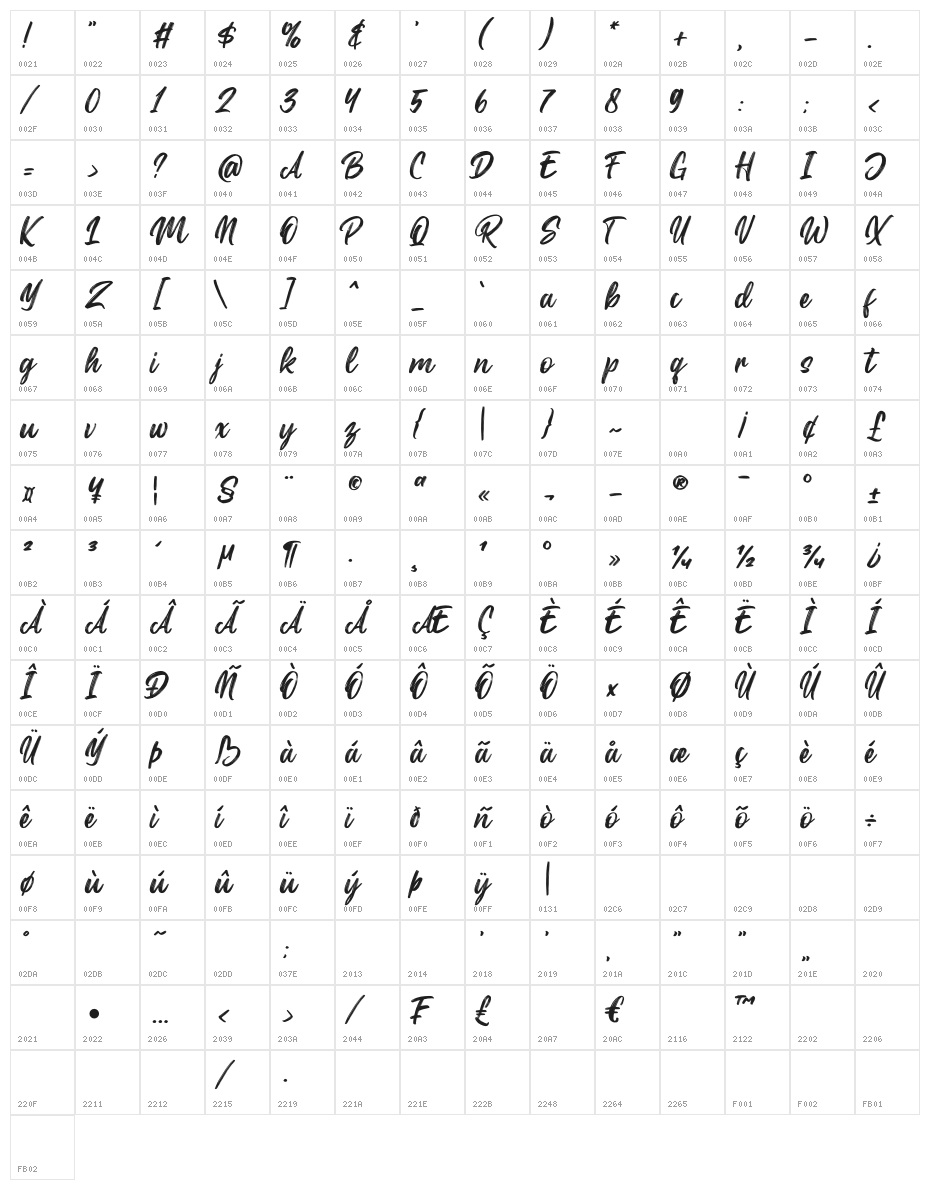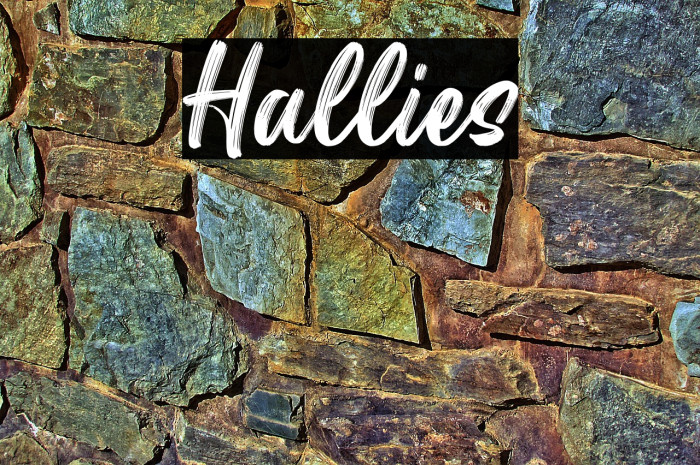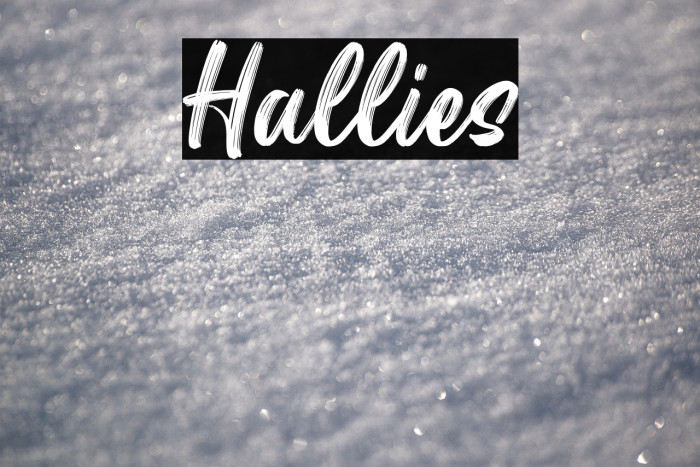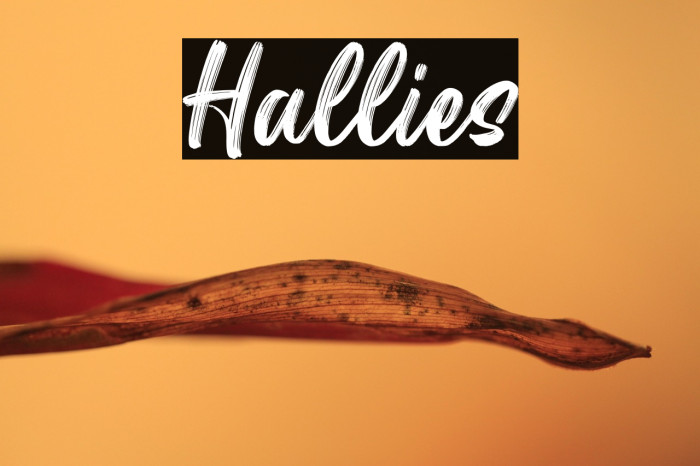
Hallies Font
Hallies Description
This font exudes a bold and dynamic handwritten style, characterized by its thick, brush-like strokes that convey a sense of energy and movement. The letters are slightly slanted, adding to the casual and informal feel, while maintaining a consistent flow throughout. The uppercase letters are bold and commanding, while the lowercase letters offer a more fluid and connected appearance. Numbers and special characters follow the same expressive style, making them stand out. The overall impression is one of creativity and spontaneity, suitable for projects that require a personal touch.
| Use Case | Logos, Headlines, Posters |
| Proposed Projects | Ideal for branding, posters, invitations, and social media graphics where a personal and energetic touch is desired. |